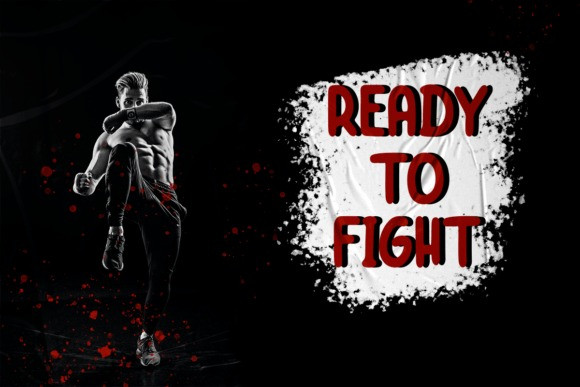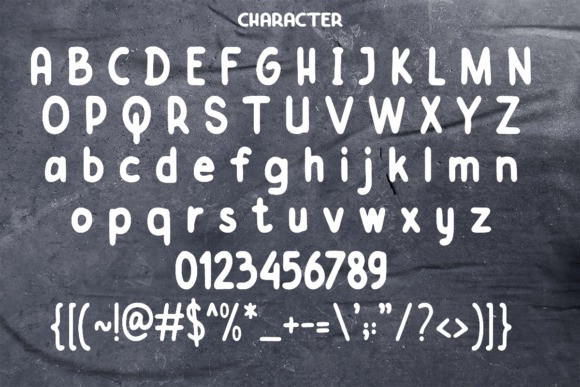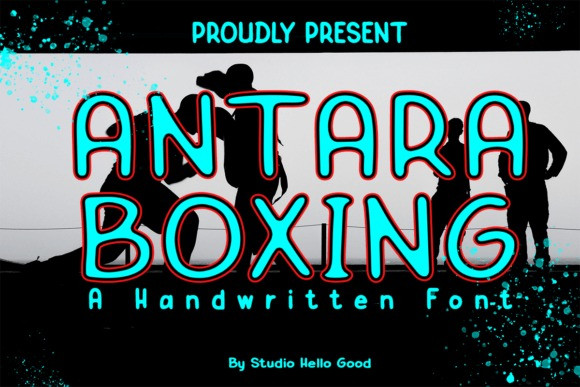
Antara Boxing Font
Antara Boxing Font, a vibrant and expressive font that encapsulates the raw energy and urban edge of tag graffiti. As we usher in a new year, this font becomes a visual celebration, blending rebellious street art aesthetics with a festive twist, making it the perfect choice for bold and unconventional New Year-themed designs.